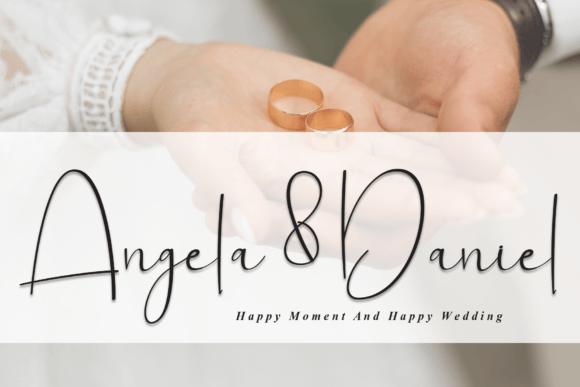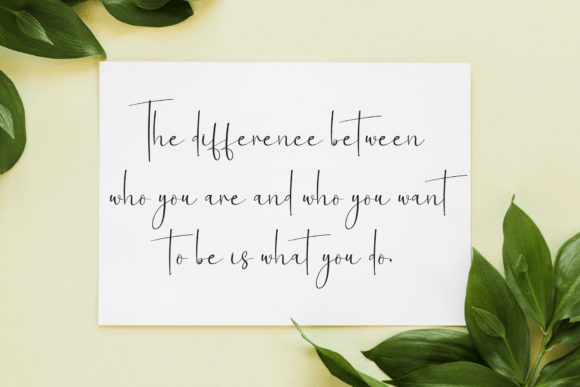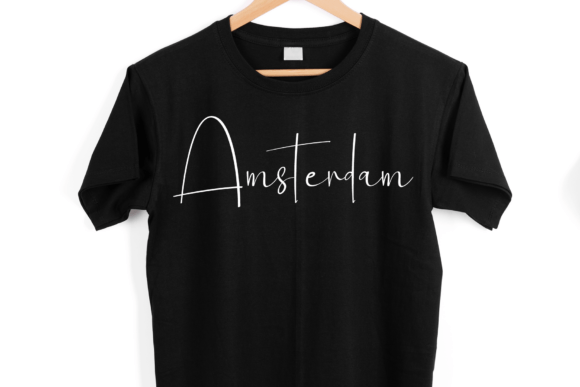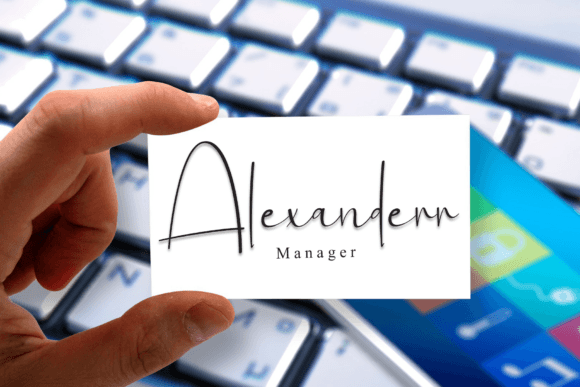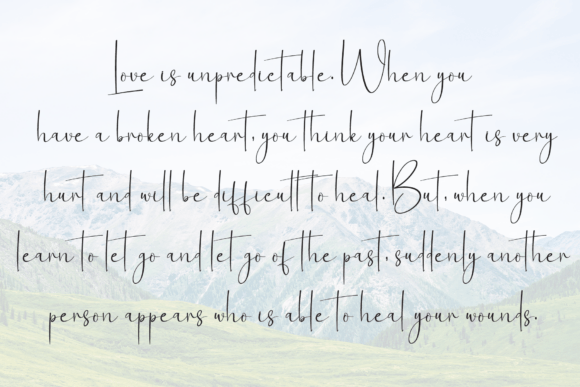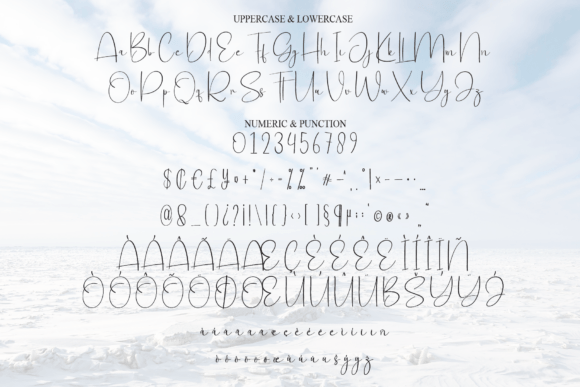
Introduction to Northpole Font
Northpole is a stylish script font with smooth, flowing letters.
It has a modern and elegant look, perfect for adding a touch of creativity to your designs Its smooth curves and sharp lines make it ideal for winter-themed projects or anything that needs a sleek, digital vibe.
Key Features of Northpole Font